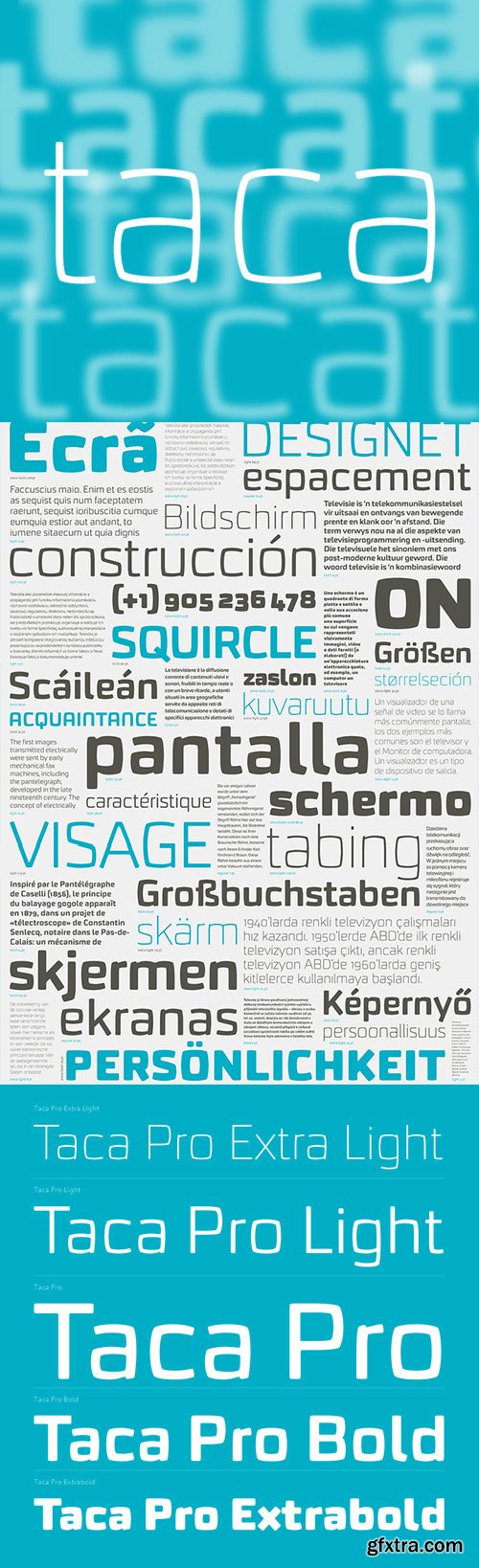
Taca - Neither Square nor Circle $78
- Taca is a typeface built around a shape that Portuguese designer Rúben R Dias calls a “squircle” — neither square nor circle. We usually associate the rounded, convex box with the television screens of the 1960s and Aldo Novarese’s classic typeface, Eurostile. But whereas Eurostile is cold and machined, Taca is warm and rugged, as if it was molded from clay or carved from stone. Taca’s organic nature is also derived from another unique feature: rounded crotches at the right angles where perpendicular strokes meet. This subtle finish, along with blunt stroke endings, softens the otherwise rigid skeleton. With such a strong conceptual vision, Taca could be relegated to the bin of experimental designs, severely limited in their application. But that fate is usually born of a less experienced maker.